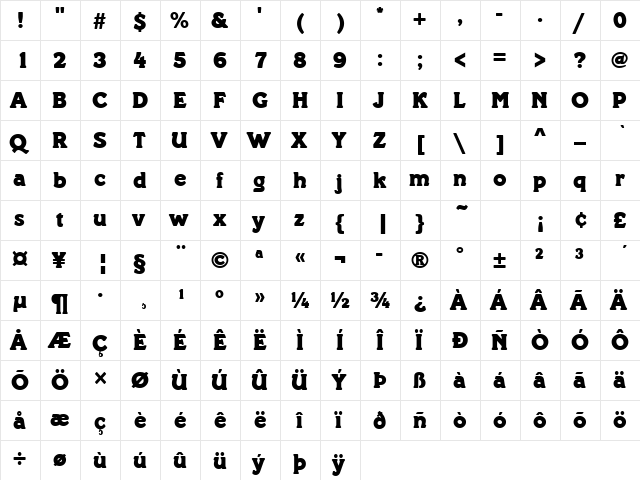
URWParrotD Regular
Design Context for URWParrotD Typeface
URWParrotD is a composed and adaptable typeface that performs quietly and consistently across a wide range of design contexts.